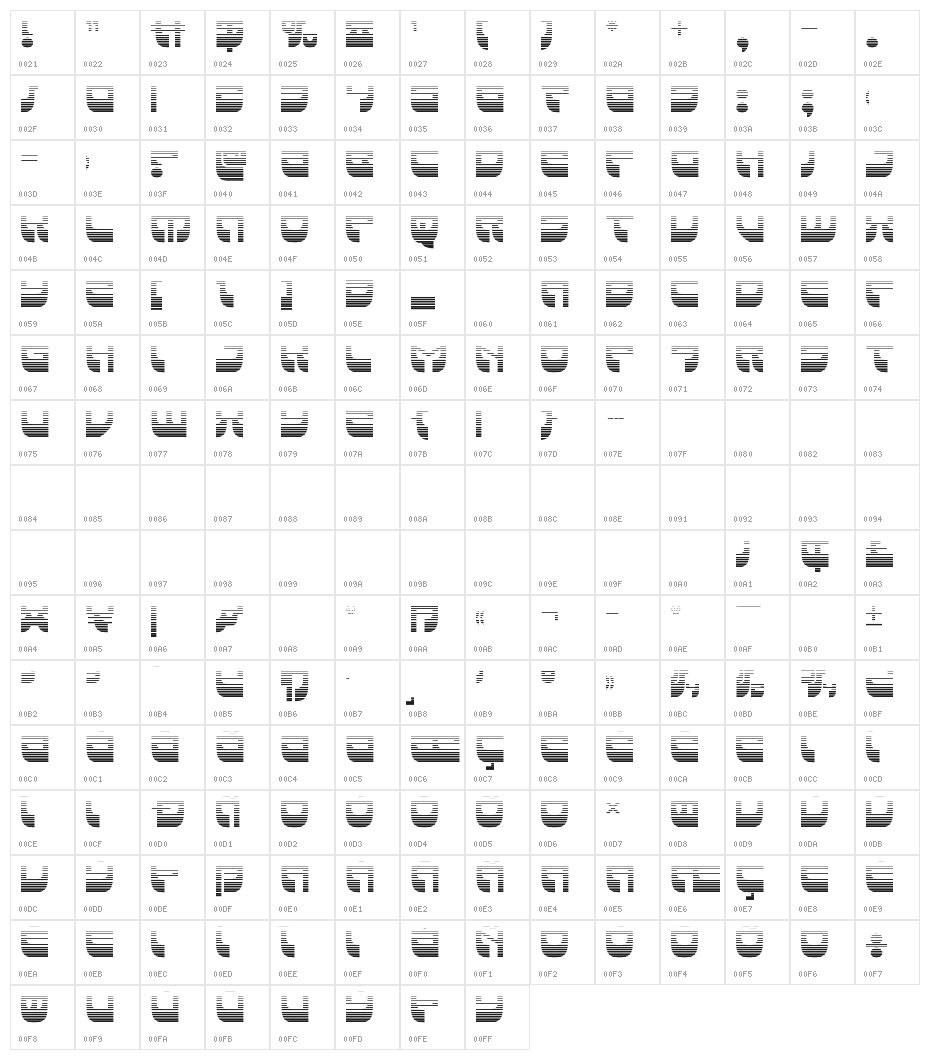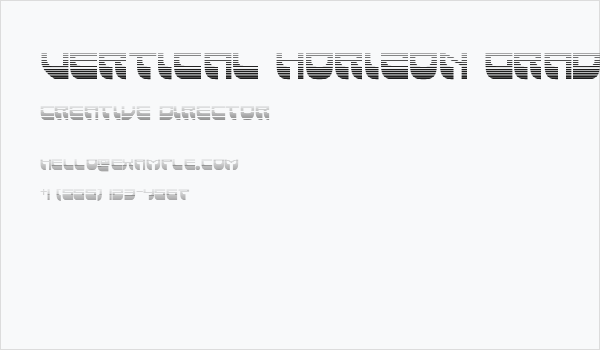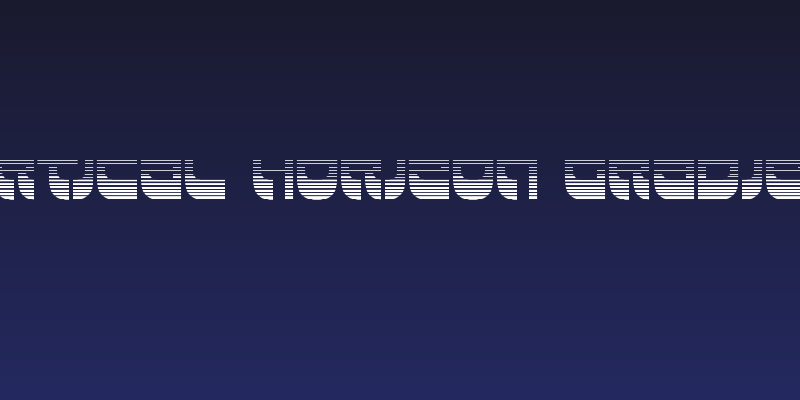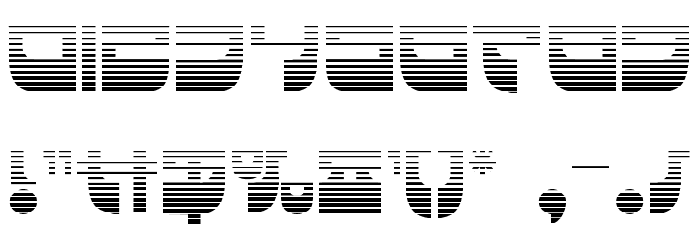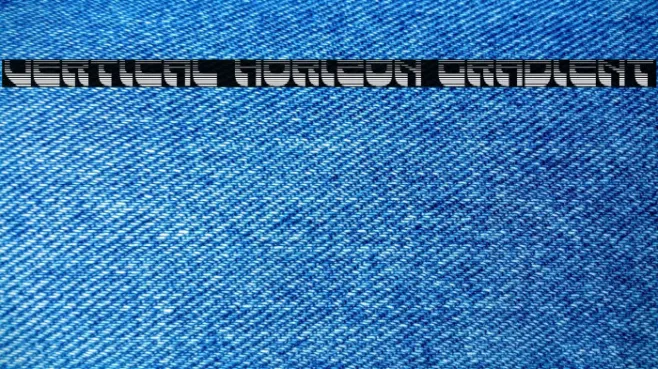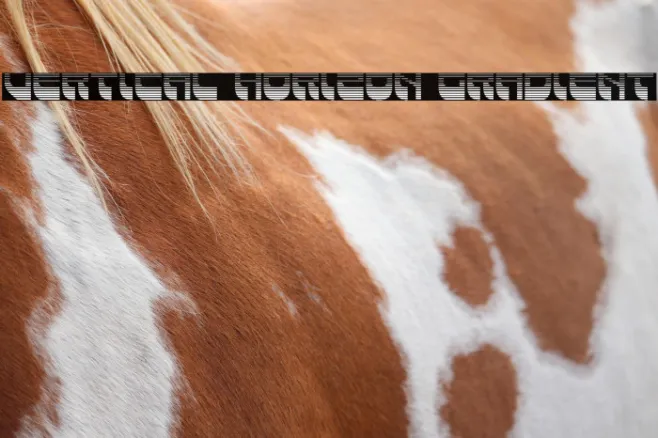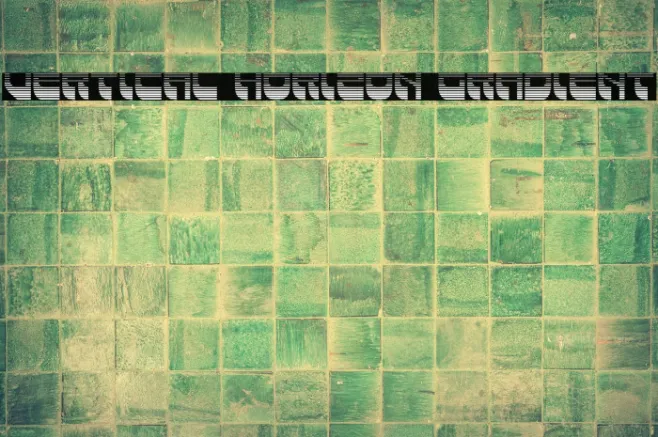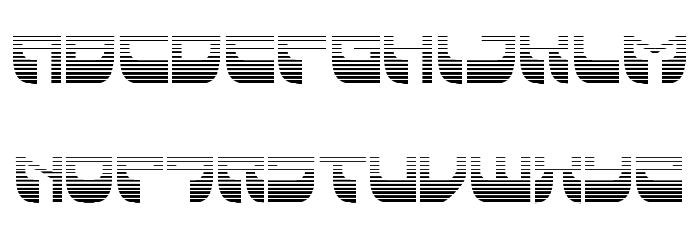
Vertical Horizon Gradient Font
Vertical Horizon Gradient Description
This font features a unique design characterized by horizontal lines that create a gradient effect across each character. The letters are bold and have a futuristic, digital appearance, reminiscent of early computer graphics or sci-fi themes. Each character is composed of multiple parallel lines, giving it a striped look that adds depth and texture. The overall style is geometric and structured, with a consistent pattern that runs through both uppercase and lowercase letters, as well as numbers and special characters. This design choice makes the font stand out, offering a visually striking option for creative projects.
| Overall Style | Futuristic, Digital |
| Proposed Projects | Ideal for sci-fi themed designs, digital art projects, modern posters, and tech-related branding. |